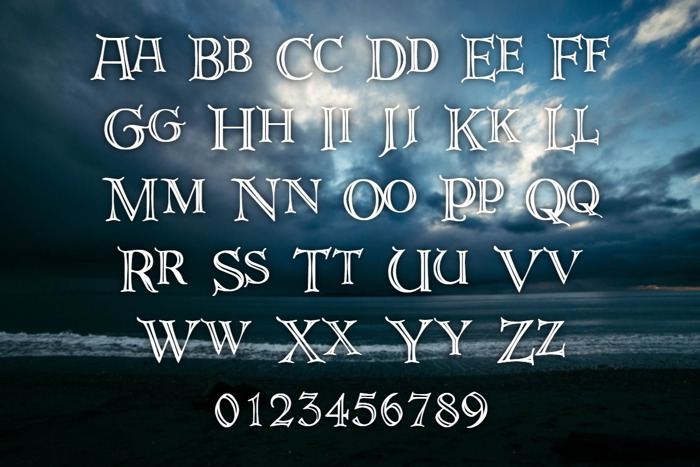
DeRoos Font
DeRoos Font is a Celtic font and was created on . Since then, it has been downloaded 3,464 times and added to 190 collections. 6 people have liked DeRoos Font and given it a thumbs up.
Caps Style
Moving along in my mastery of "drawing" programs and my Type construction education. Also done in 1992. Original image scanned from a Dover Clipart Type book. Upper Case & Lower Case are "scaled" versions of each other. Contains US English punctuation and all US Eng alphanumeric characters along with a few "alternate" letterforms placed in ASCII 0161-0166.